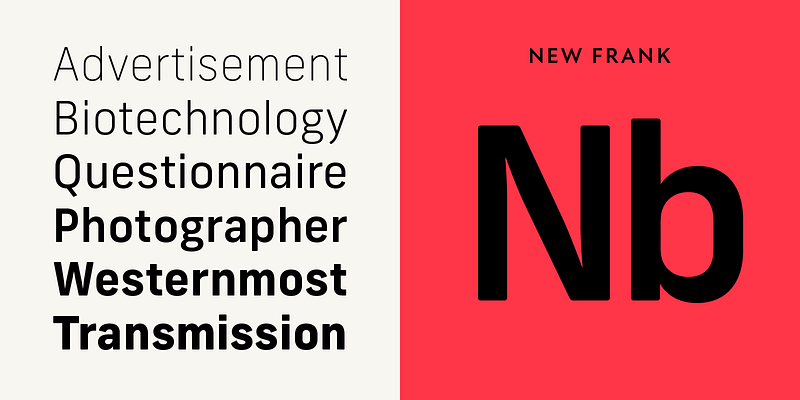
New Frank Font Free Download is a clean and contemporary sans-serif typeface that combines modern geometry with a touch of humanist warmth. With its minimal yet versatile structure, it’s ideal for corporate branding, web design, editorial layouts, tech startups, and digital interfaces that require a sleek, professional look.
Offering excellent legibility and a balanced rhythm, New Frank performs beautifully in both display and body text. It integrates smoothly with popular design tools like Adobe Illustrator, Photoshop, Figma, and Canva, making it a reliable choice for both print and digital projects.